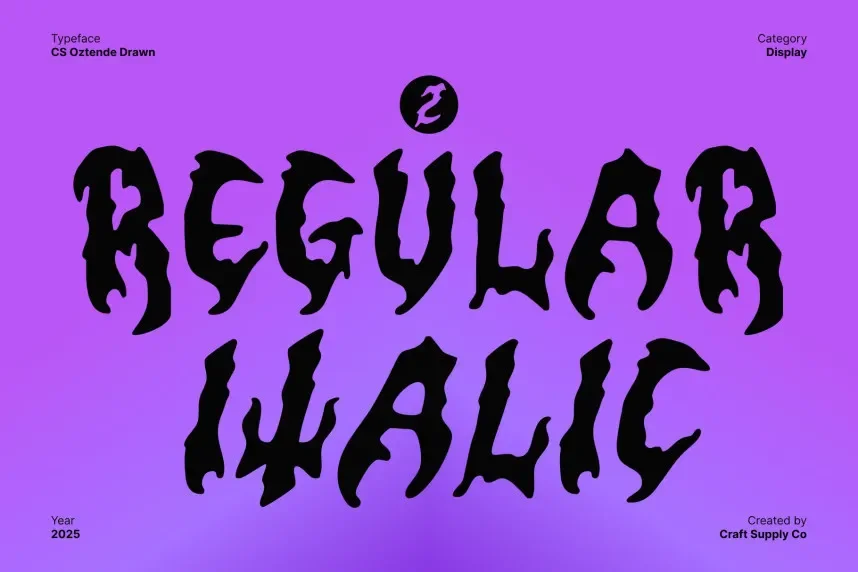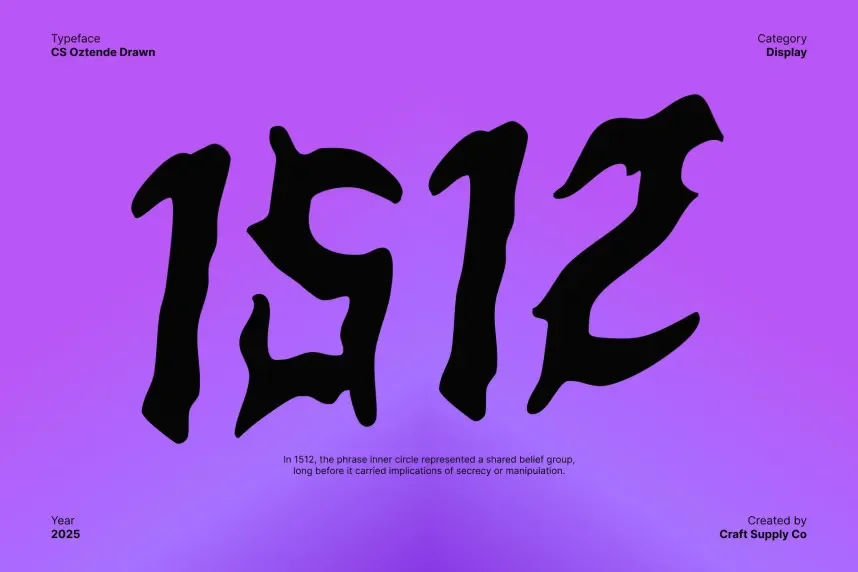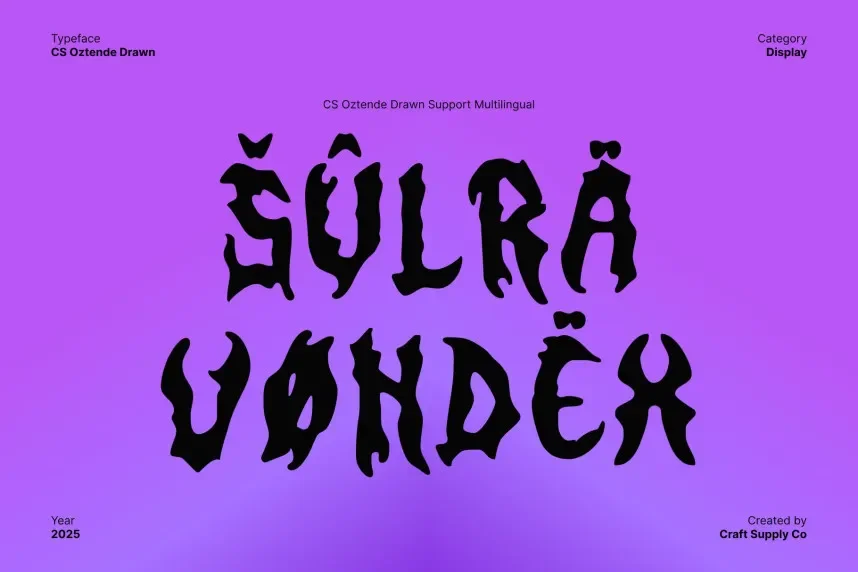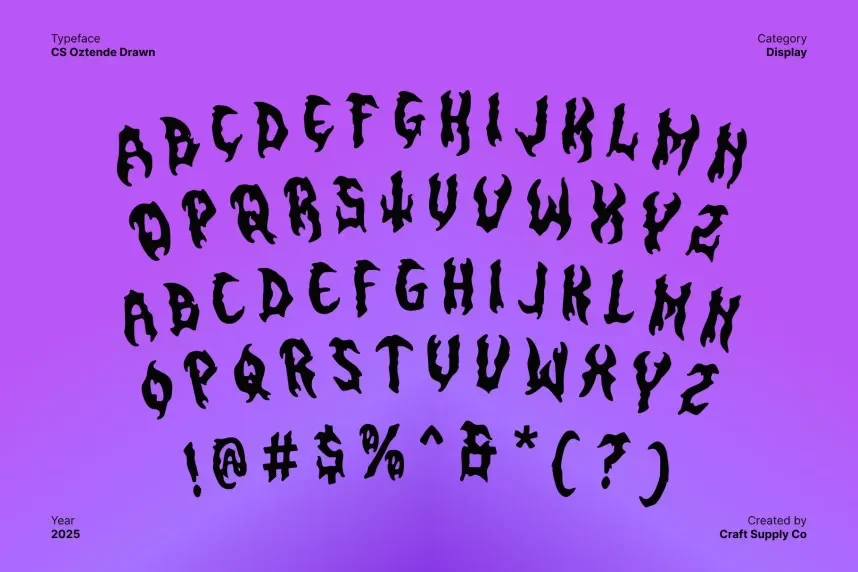
CS Oztende Drawn Font is a bold, hand-drawn display typeface with a rugged style. Its sharp edges and expressive forms make it ideal for impactful designs that need to stand out, such as music posters, branding, and advertisements.